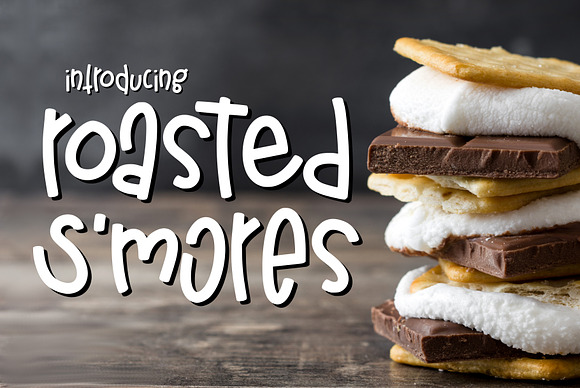
Roasted S'mores Font
Roasted S'mores Font is perfect for campfire-themed designs, outdoor adventure branding, cozy café signage, summer camp graphics, rustic cabin logos, bakery packaging, nostalgic childhood designs, and warm family gathering invitations.
This exciting Roasted S'mores Font captures the heartwarming essence of campfire gatherings with its toasted letterforms and cozy character that evokes memories of summer nights, family bonding, and outdoor adventures. The font's warm personality and nostalgic charm make it an exceptional choice for projects requiring comfort, togetherness, and wholesome appeal that resonates with audiences who cherish simple pleasures and family traditions.
The Roasted S'mores Font family includes multiple campfire variations such as Regular, Toasted, Melted, Charred, Light Fire, and Smoky versions, providing designers with comprehensive options for creating warm brand communications and nostalgic typographic compositions with authentic outdoor adventure spirit.
Experience campfire typography warmth with Roasted S'mores Font Free Download - a delightfully crafted typeface that embodies the cozy comfort of outdoor gatherings and childhood memories. This versatile font combines nostalgic warmth with contemporary functionality, making it ideal for brands and projects that need to communicate comfort, family values, and wholesome outdoor experiences.
The cozy character of Roasted S'mores Font makes it particularly effective for outdoor recreation companies, family restaurants, camping gear brands, and comfort food establishments that need to convey warmth, nostalgia, and family-friendly atmosphere. Its toasted styling appeals to audiences who appreciate outdoor adventures, family traditions, and comfort food experiences.
Design professionals choose Roasted S'mores Font for its authentic campfire atmosphere and exceptional emotional appeal across various outdoor applications. The font maintains its cozy charm from small product labels to large outdoor signage, ensuring consistent brand warmth and nostalgic appeal throughout all family-oriented communications.
The distinctive personality of Roasted S'mores Font creates immediate emotional connections through powerful associations with childhood memories, family bonding, and outdoor adventure traditions. This makes it invaluable for brands seeking to leverage nostalgia and family values for marketing campaigns and comfort-focused brand positioning.
Family-oriented brands utilize Roasted S'mores Font to establish authentic identities that communicate warmth, tradition, and wholesome values in competitive lifestyle markets. The typeface's campfire appeal helps businesses differentiate themselves while attracting consumers who value family experiences, outdoor adventures, and nostalgic comfort in their lifestyle choices and purchasing decisions.